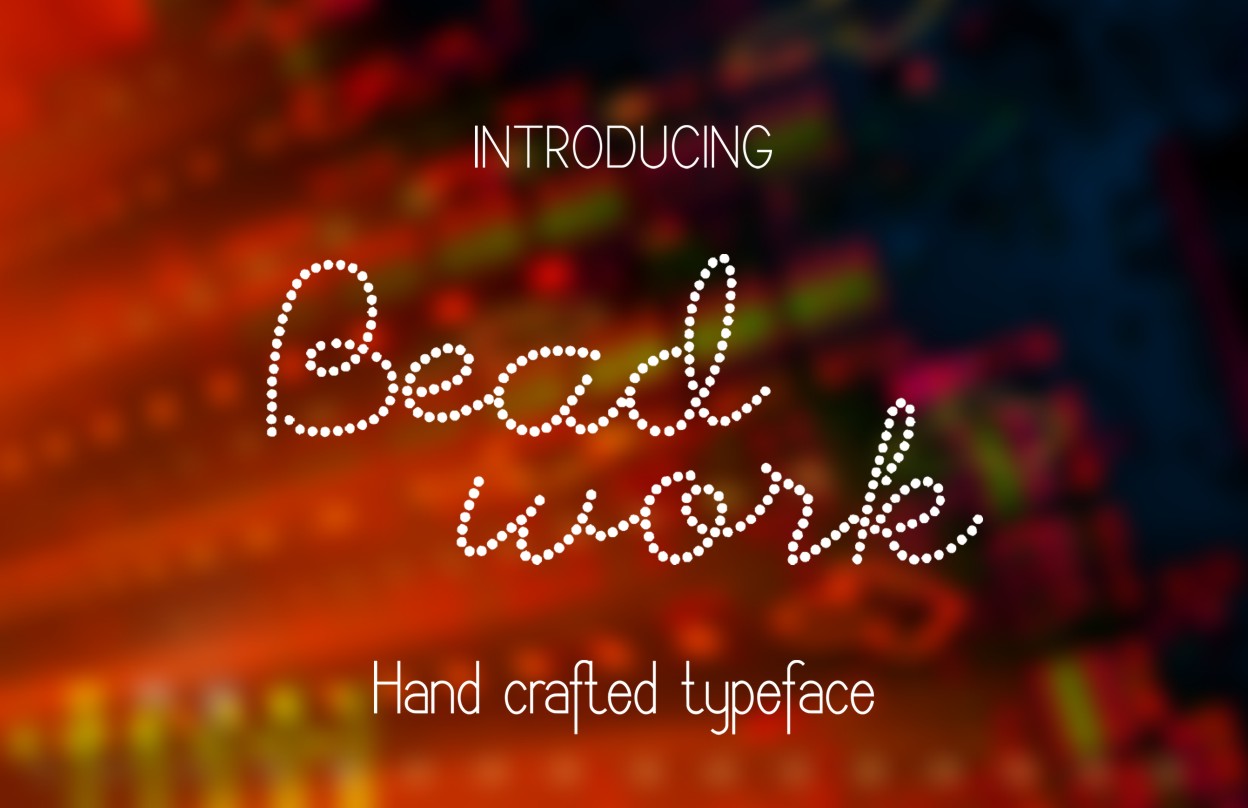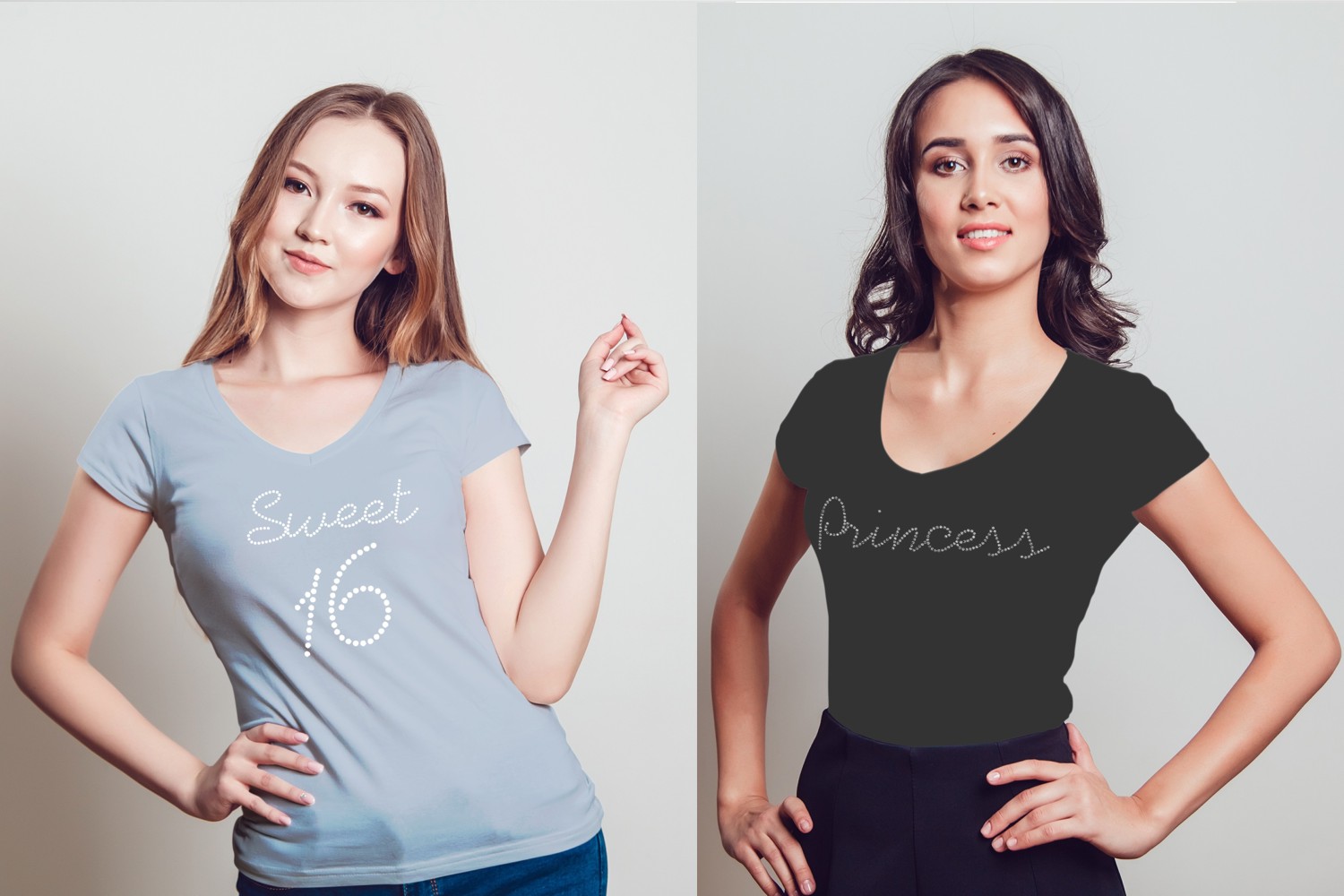
HomeScript FontsBeadwork Font Script Fonts Beadwork Font FacebookXPinterestWhatsApp AA038810 Beadwork Font Poster 2 About Beadwork Font Beadwork is a Rhinestones inspired typeface and drawn on a digital tablet. DOWNLOAD NOW People also explored Rostallia Font Spooky Halloween Title Font Beautiful Sky Font Doggy Dog Font Sugar Font YWFT Dessau Classy Almires Font Halloween Cobwebs Font Vintage Vacation 247 0 TagsBeadwork Font Previous articleSunday Walking Street FontNext articleRomantis Momen Font LEAVE A REPLY Cancel reply Comment: Please enter your comment! Name:* Please enter your name here Email:* You have entered an incorrect email address! Please enter your email address here Website: Save my name, email, and website in this browser for the next time I comment. Personal Use Free Glowing Personal Use Free Read more about this font Sybil Green Personal Use Free Read more about this font Super Discount Personal Use Free Read more about this font Squariess Personal Use Free Read more about this font BLOG Free vs Paid Fonts: Why Investing in Premium Fonts Is Worth It Free vs Paid Fonts: Why Premium Fonts Are Worth It in 2025 The debate of free vs paid fonts continues in the design world. While... 5 Fonts That Will Dominate Design Trends in 2026 Fonts That Capture the Spirit of New York City Transform Your Website: Elevate Your Typography with 7 Best Web Font Generators